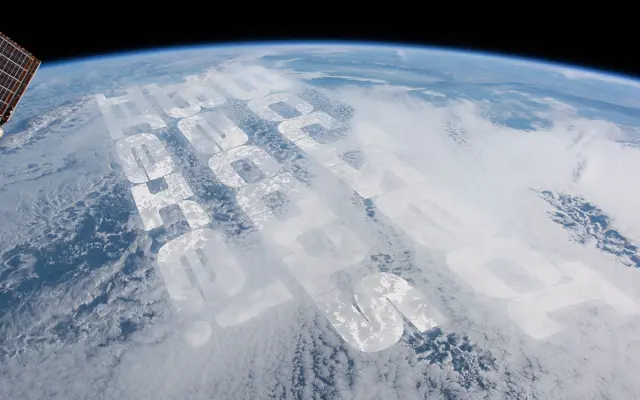
Zaft
A grid-constructed display slab by Jacob Wise, inspired by a 1959 Wim Crouwel poster, with contextual ligatures that form rounded bridges between mirroring glyph pairs.
Built on a precise underlying grid with ink-traps at stroke intersections, Zaft takes the analytical rigour of Dutch modernism as its structural foundation while allowing a playful rhythm to emerge from the compressed negative space. Contextual ligatures create rounded connections between mirroring corners, softening what would otherwise be an uncompromisingly heavy-duty design. It is offered as a single style with variable format support, and is positioned squarely at editorial display and poster work.
A single-weight display typeface built on a strict grid with heavy slab-serif forms and contextual ligatures, designed explicitly for impact at large sizes rather than text setting.